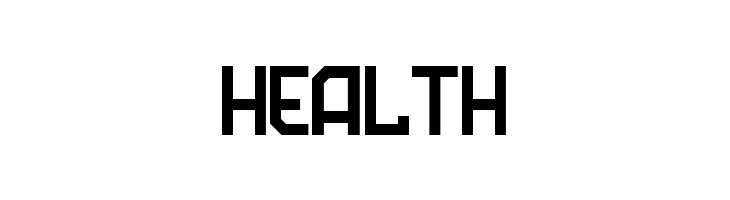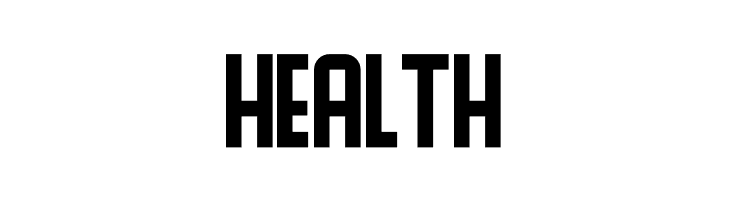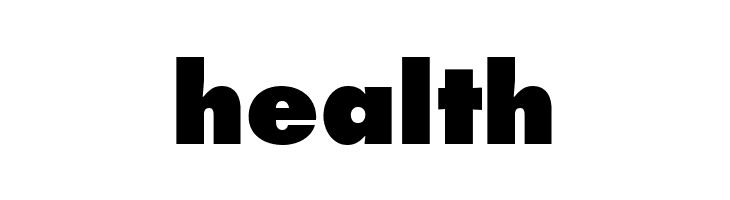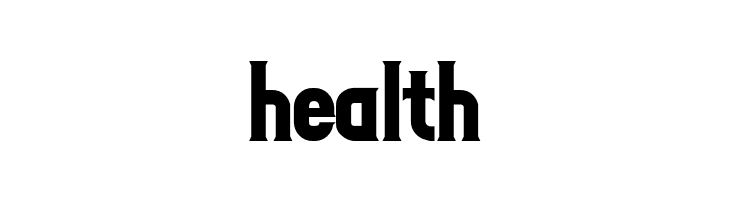
( Alexander Pravdin )
A bold, condensed font with heavy strokes for impactful designs.
( Andrea Gaspari )
A bold, impactful font with clean lines and high legibility.
( Andreas Siess - www.andi-siess.de/ )
A bold, geometric, and condensed font ideal for impactful headlines.
( Austin Signs )
A bold, geometric font with a modern and impactful design.
( Bogdan Casota - designalot.net/ )
A bold, geometric font with a modern and impactful design.
( Chase Babb )
A bold, impactful typeface with a strong, modern presence.
( Chequered Ink - chequered.ink/ )
A bold, geometric font with clean lines and uniform stroke widths, perfect for impactful statements.
( Chequered Ink - chequered.ink/ )
A bold, geometric font with a modern and impactful design.
( Conrad Garner - www.conradgarner.com )
A bold, geometric font with a modern and impactful style.
( Craft Supply Co. - creativemarket.com/craftsupplyco )
A bold, outlined serif font with a modern and impactful design.